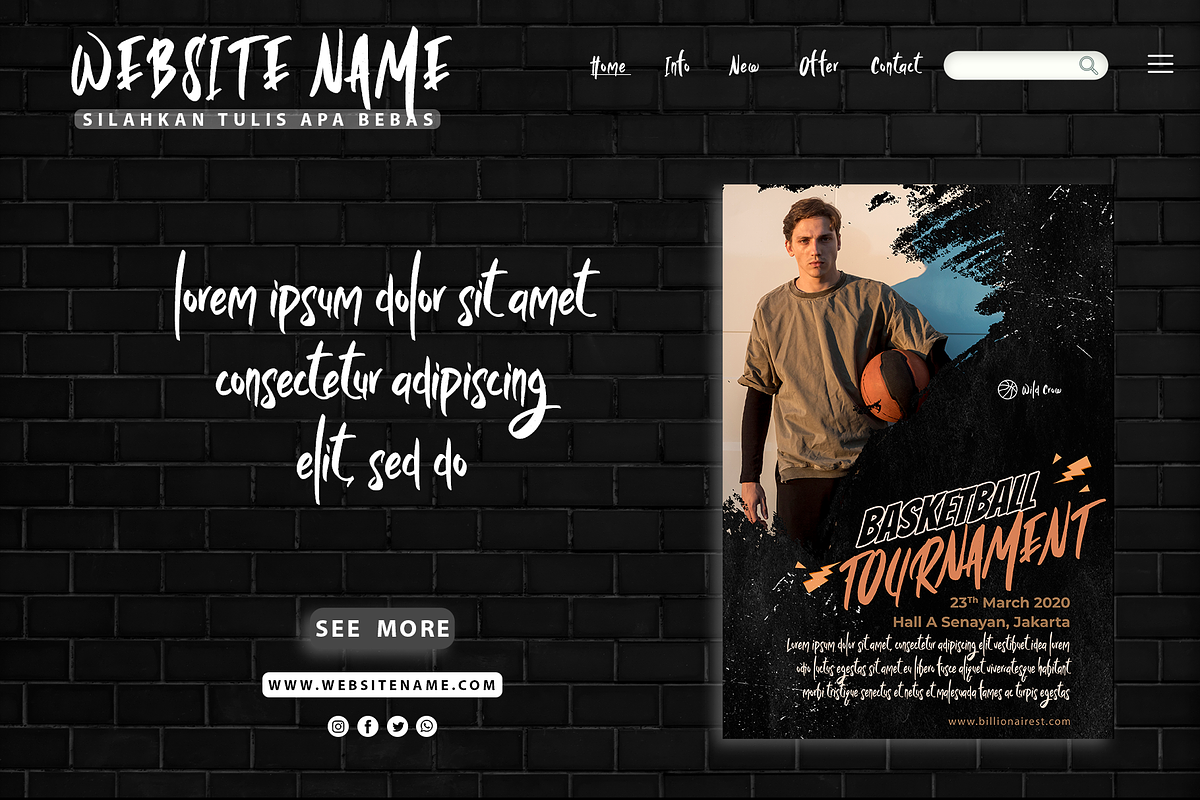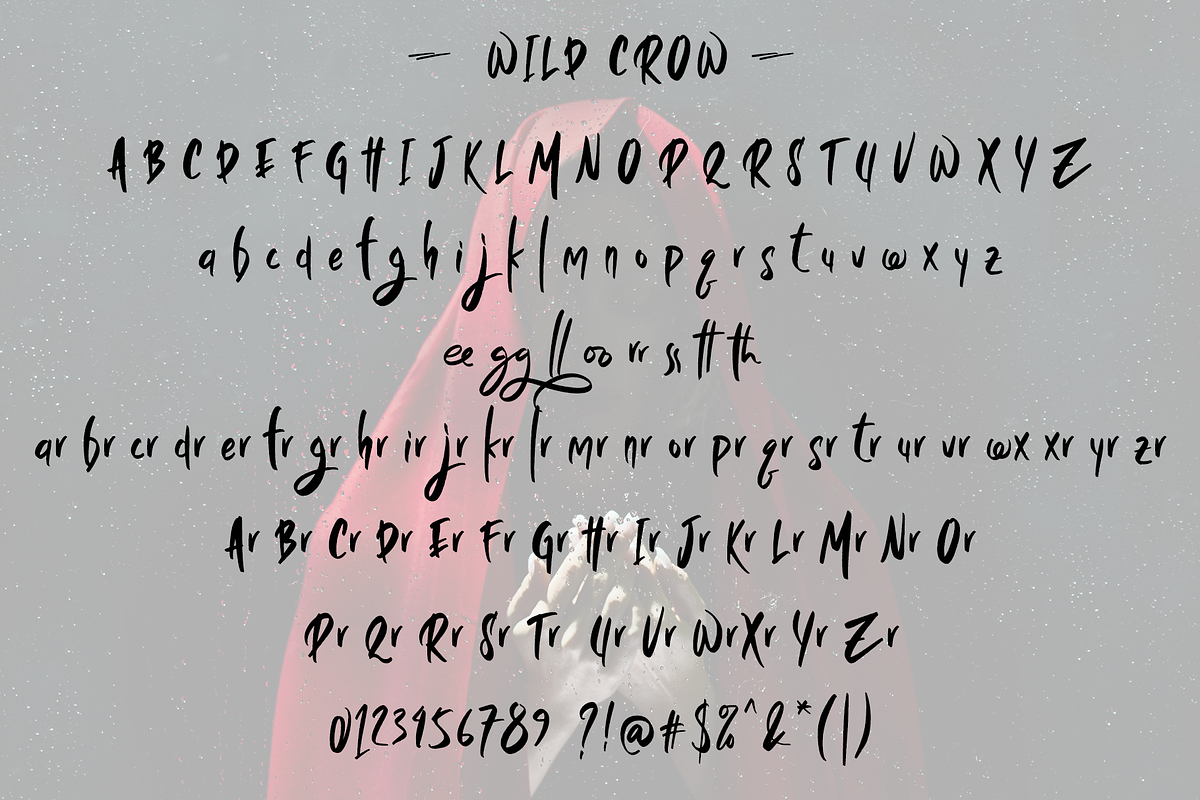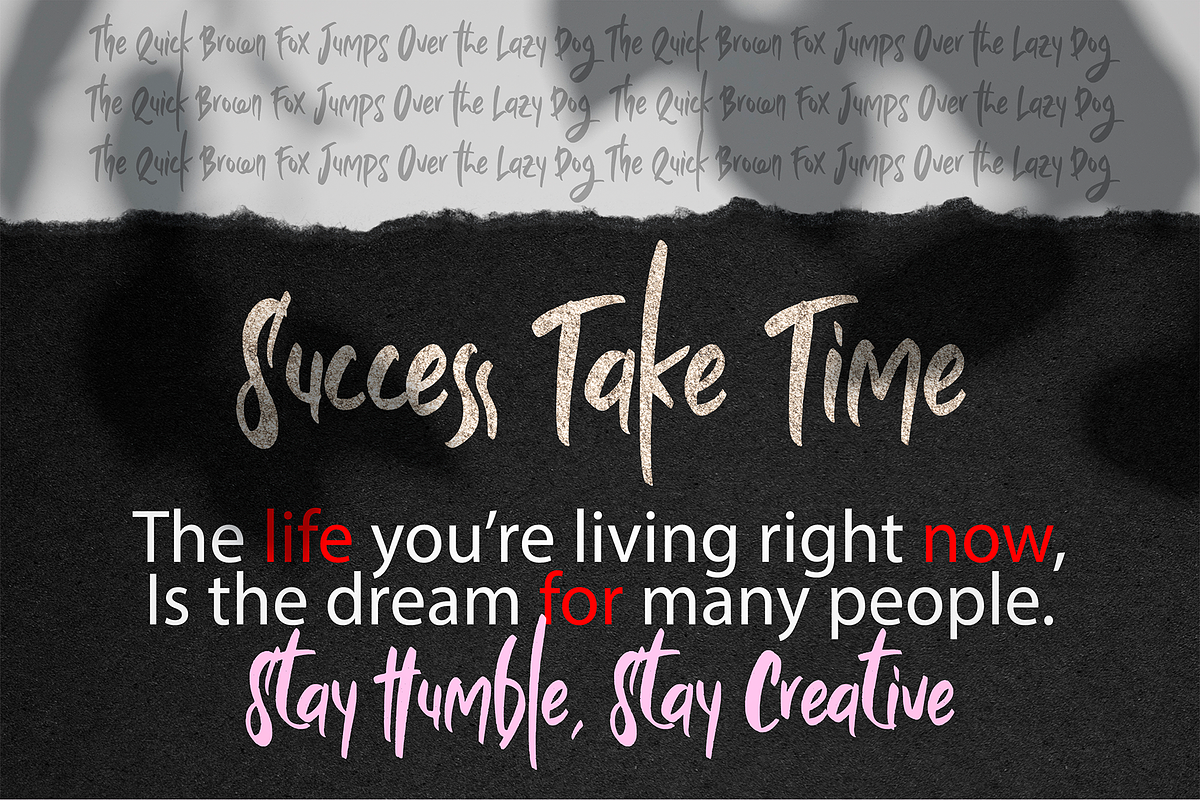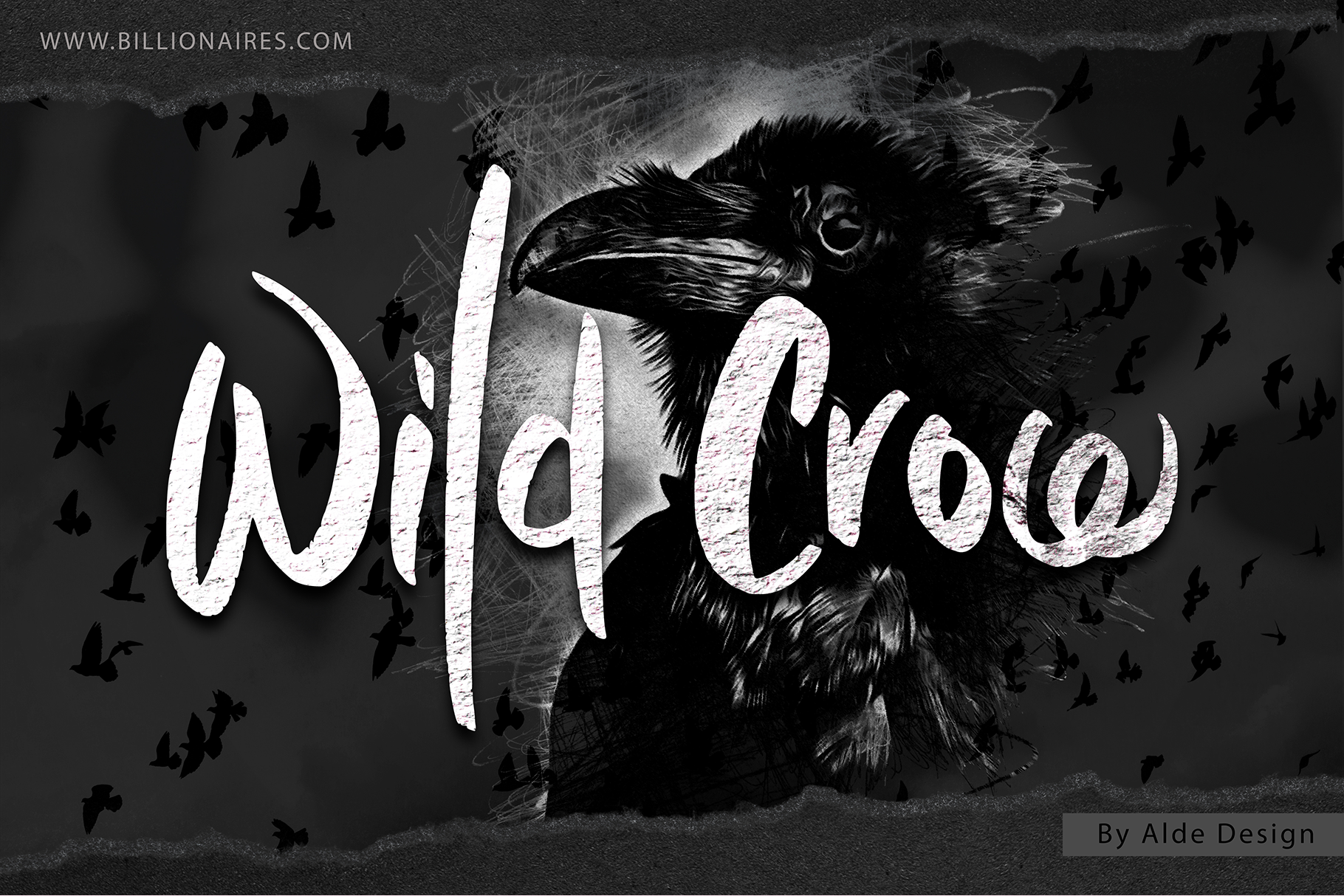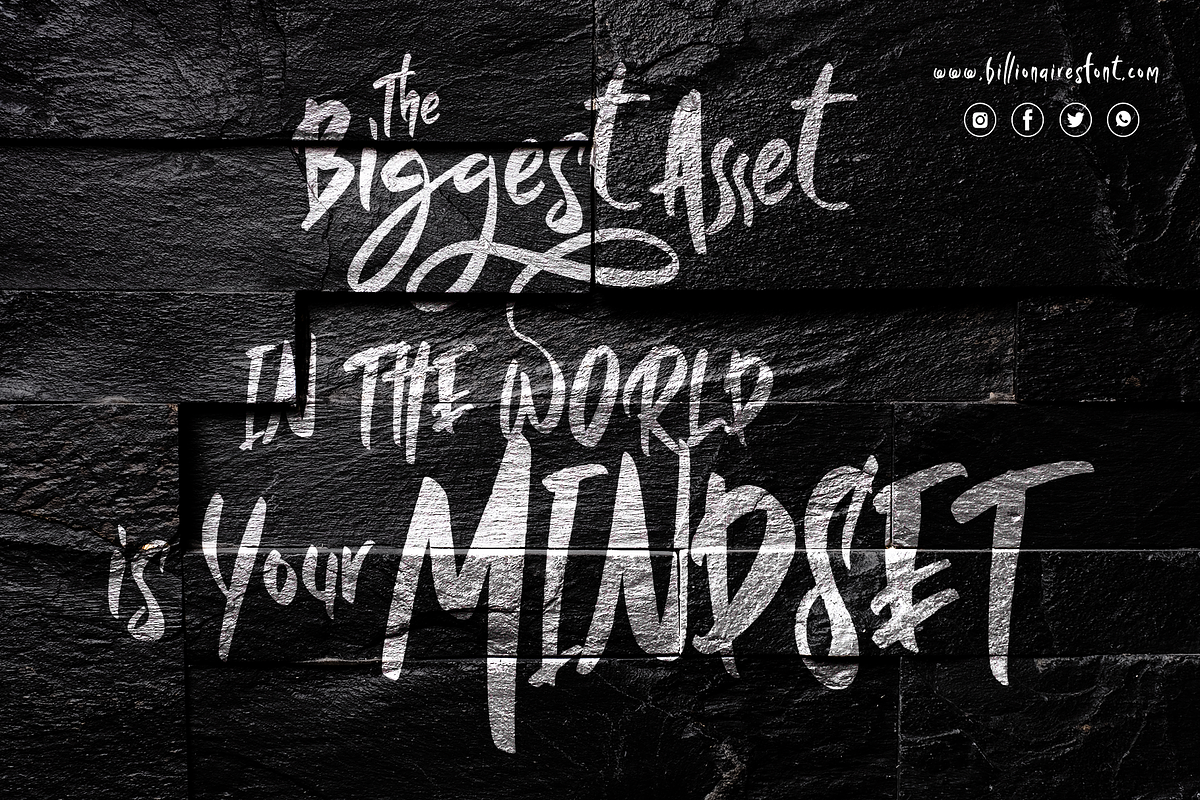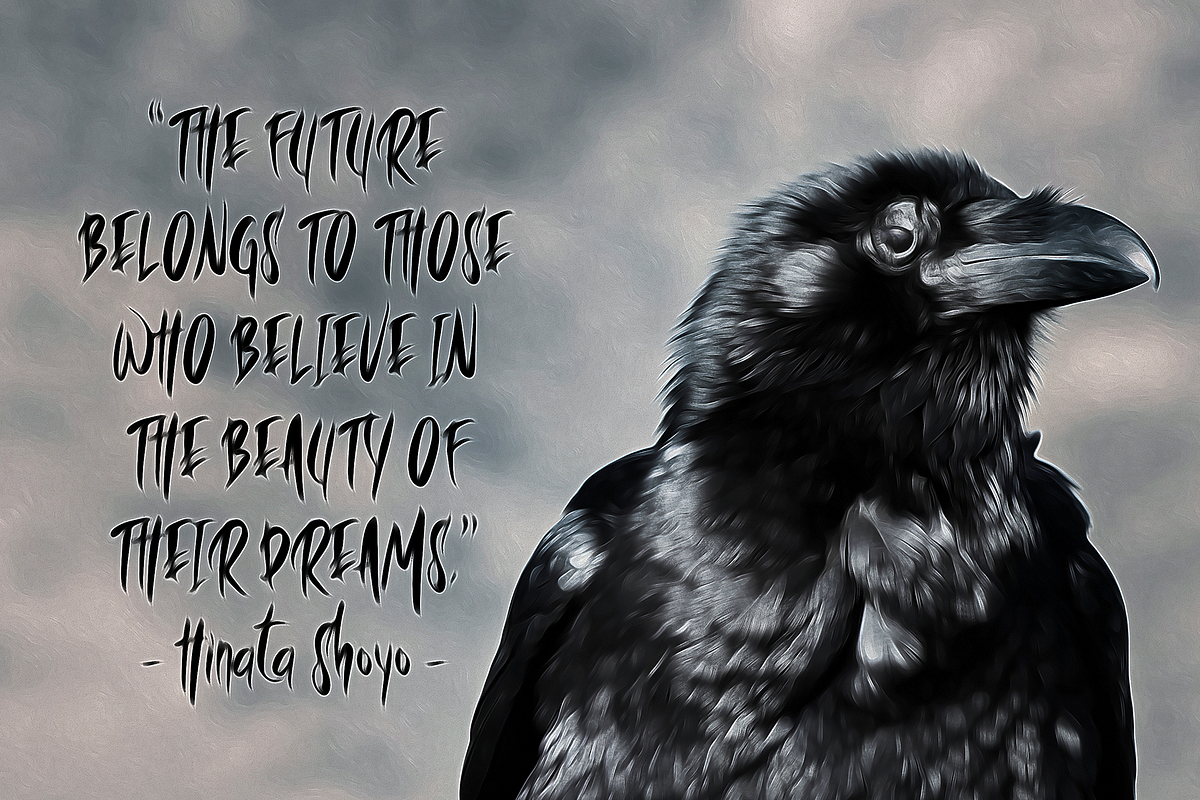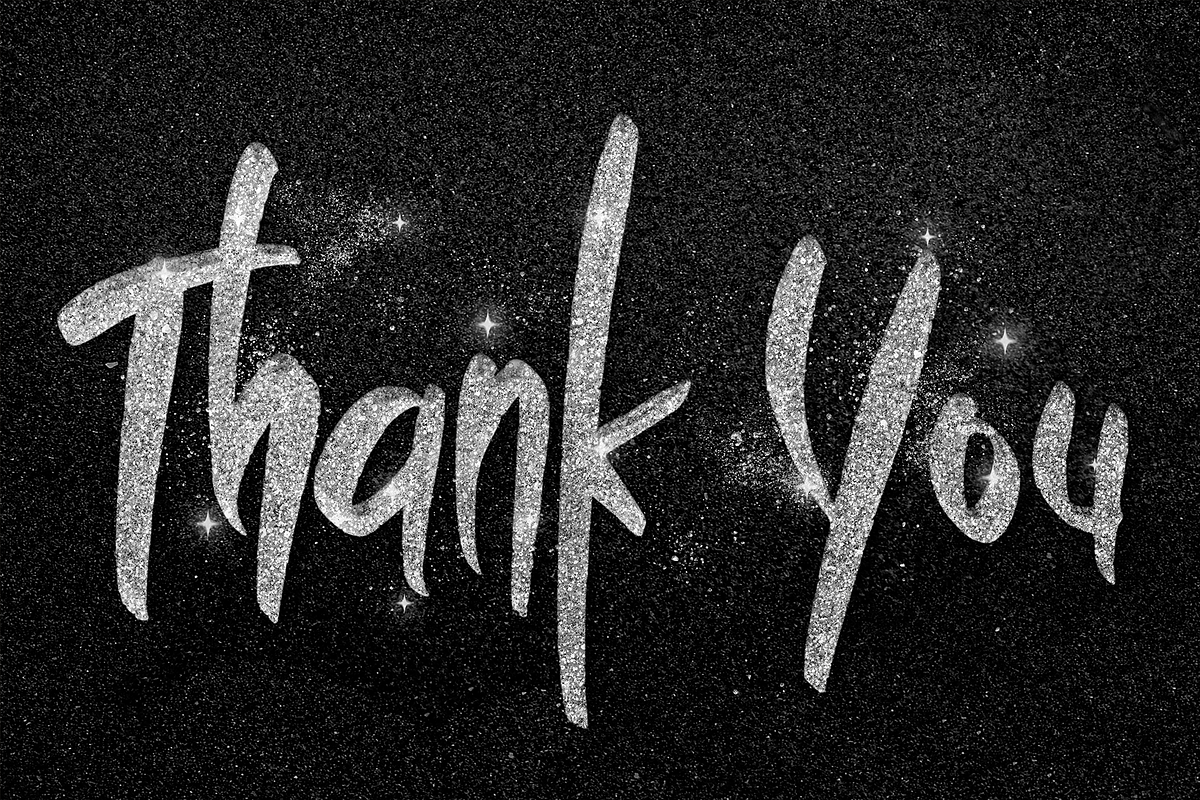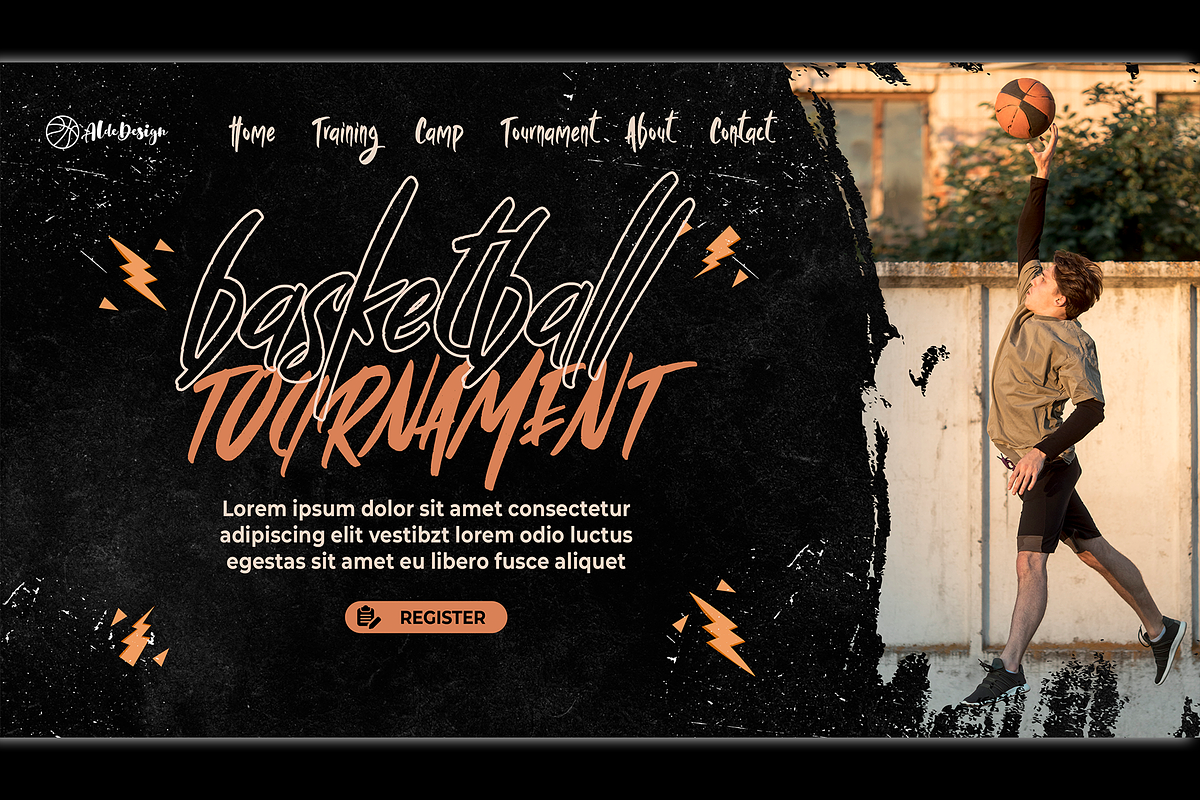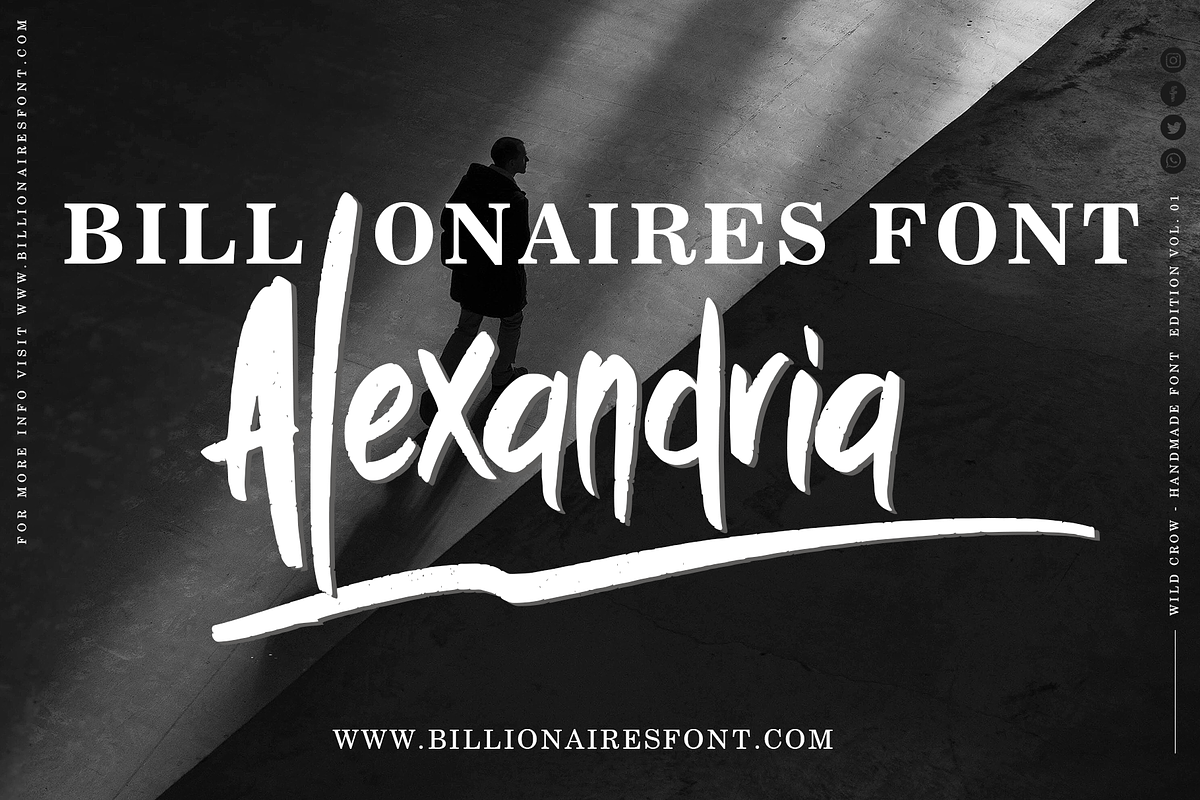
Wild Crow - Playful Handmade Font
Wild Crow is a unique handwritten font with a handmade touch. This font is perfect for posters, pamphlets, logos, quotes, posters, playful lettering, clothing, or any other design projects.